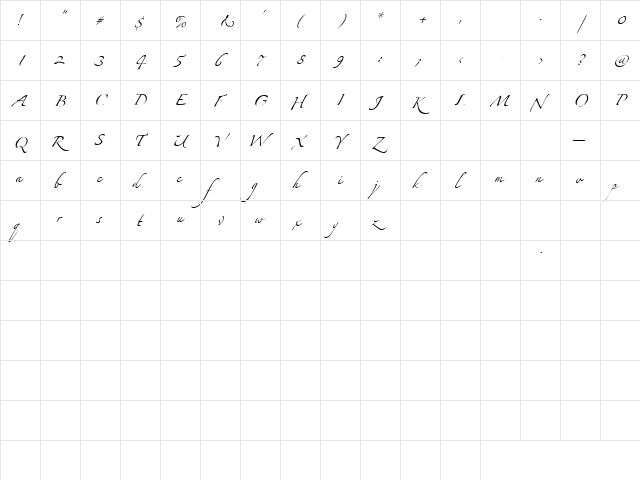
AL Afternoon Delight Regular Font Preview
AL Afternoon Delight Regular
AL Afternoon Delight Regular Font Details
Design Context for AL Afternoon Delight Typeface
AL Afternoon Delight takes a measured approach to typography — its balanced proportions and neutral character make it a reliable workhorse for both digital and print work. Its slender proportions lend an understated elegance to any composition.